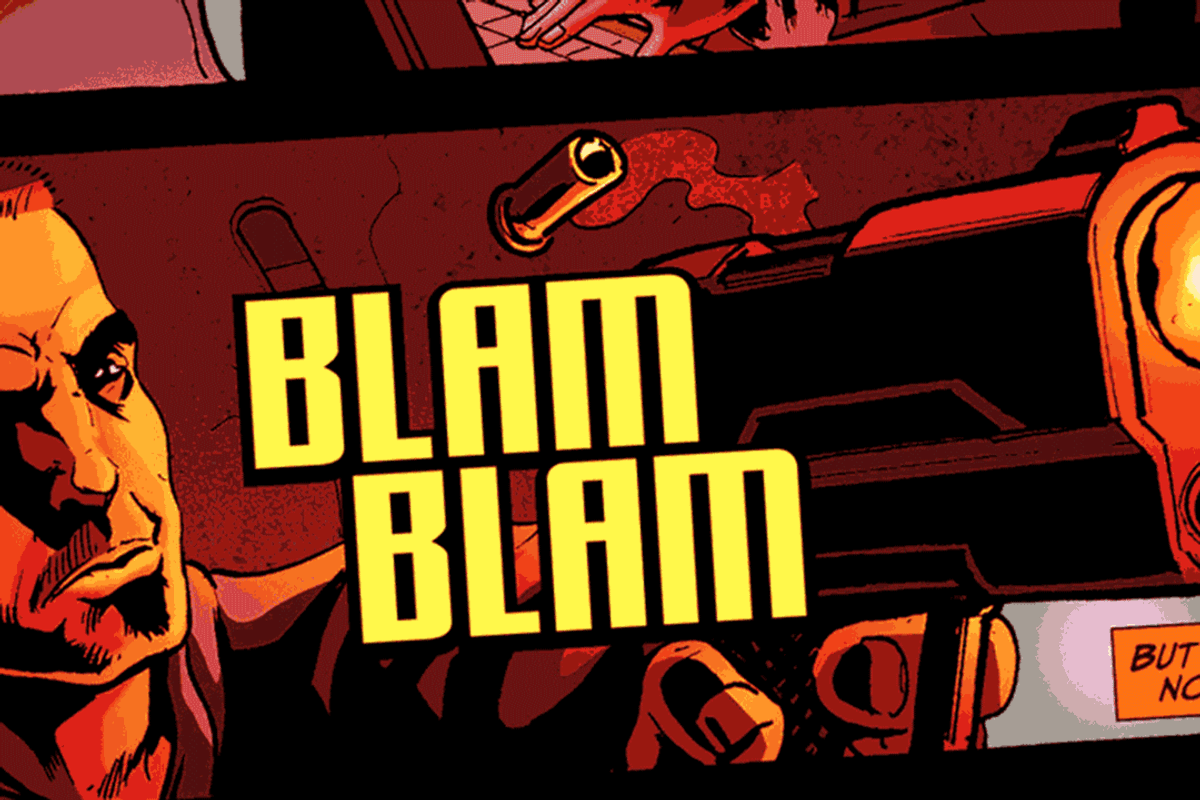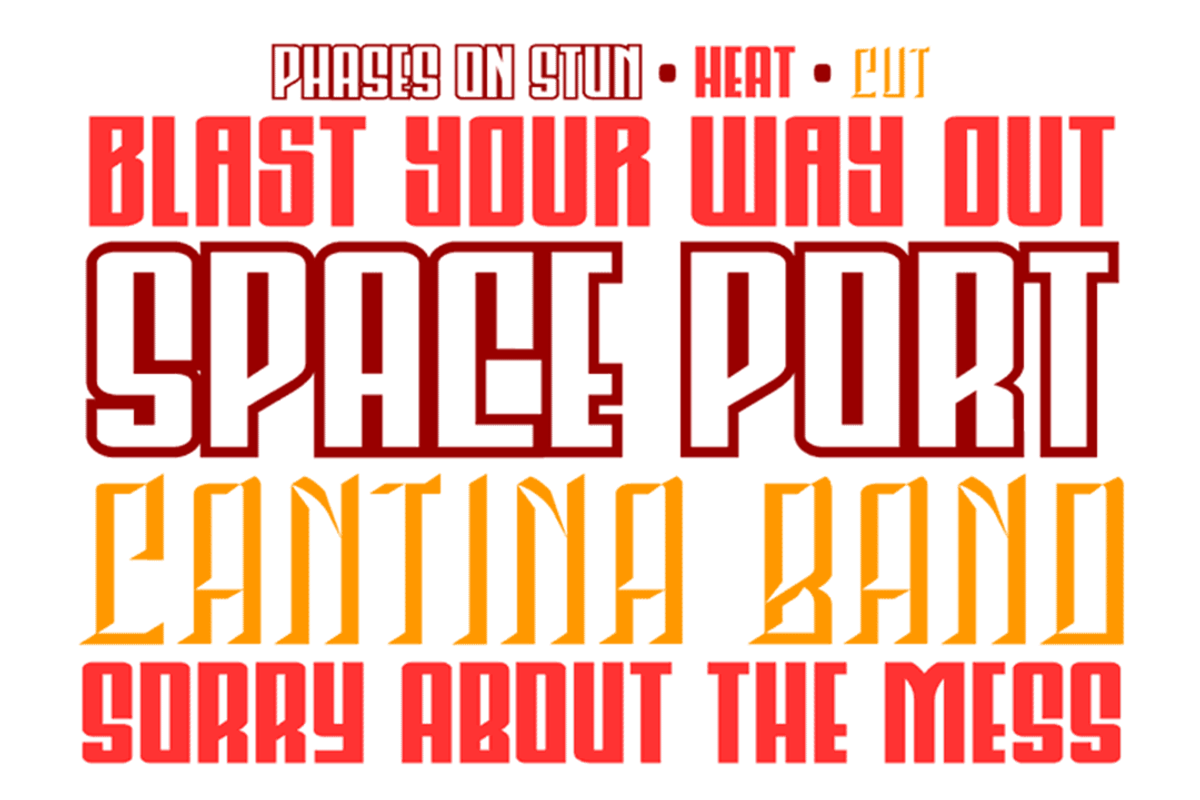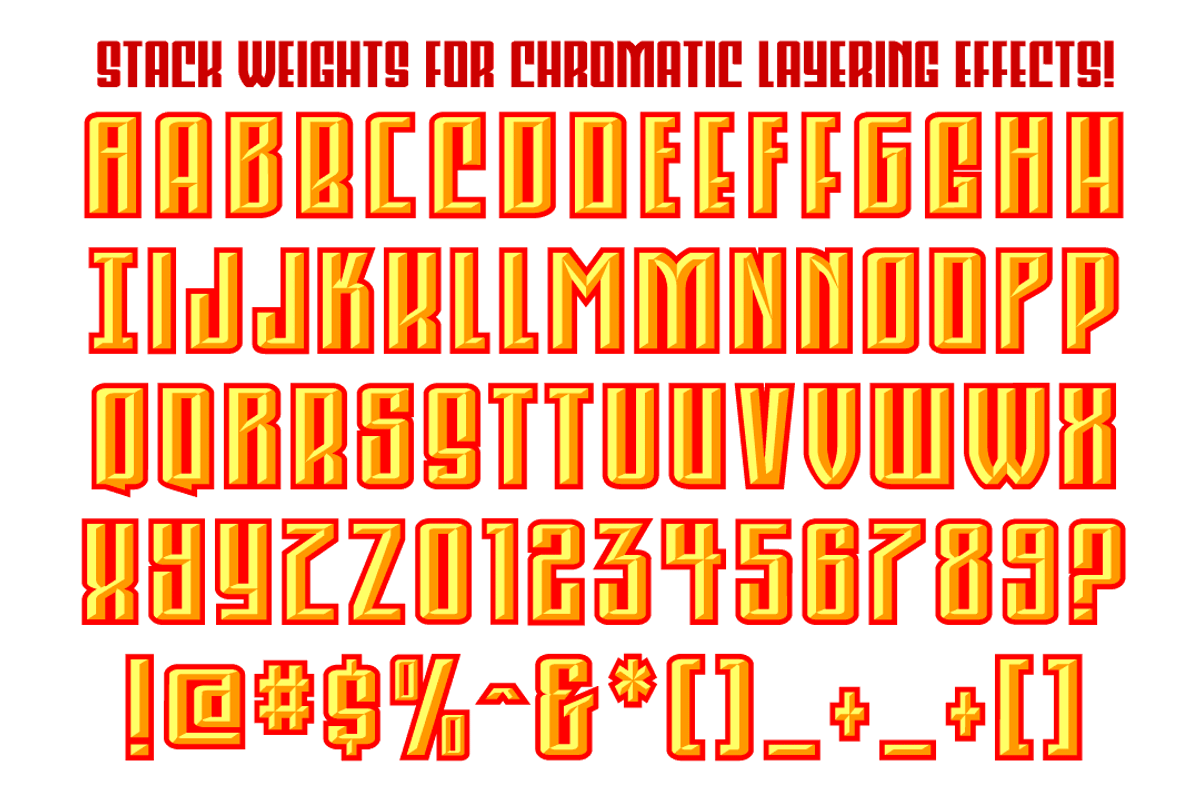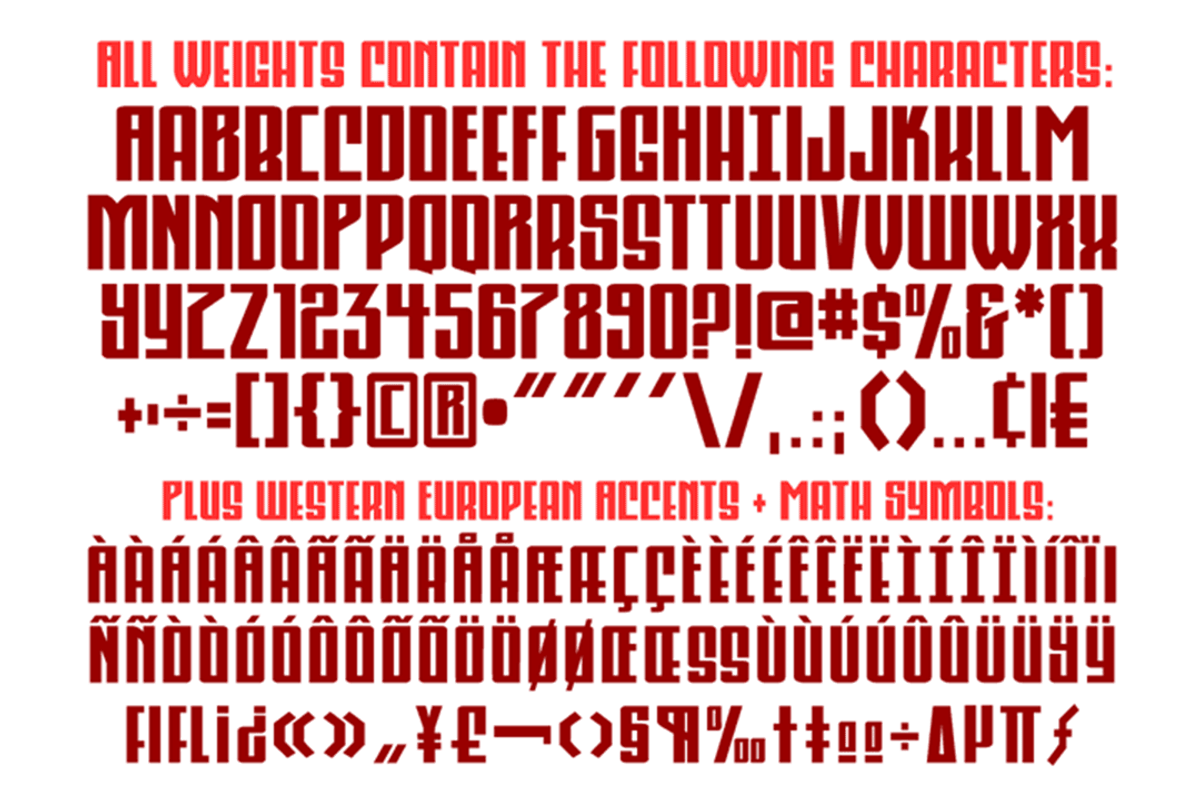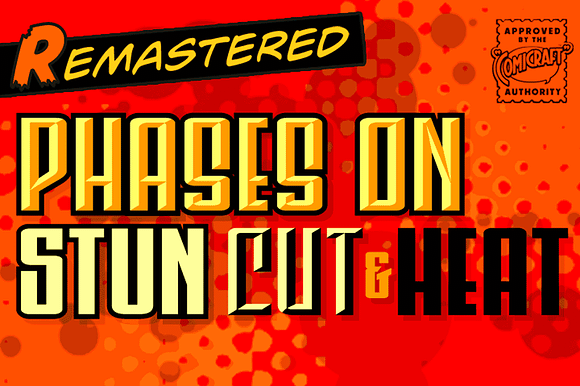
Phases on Stun
Blast your way through the alphabet with this stunning font from Comicraft’s work on THE PUNISHER!
Why Phases on Stun is worth a look
Phases on Stun by Comicraft Fonts fits naturally into Branding, posters, packaging, typography.